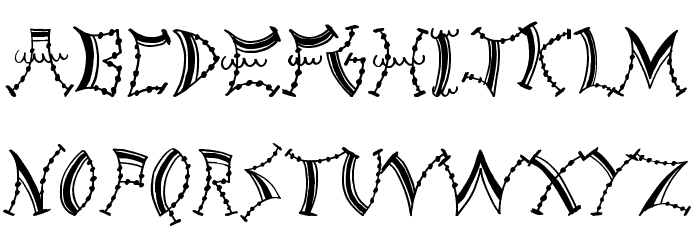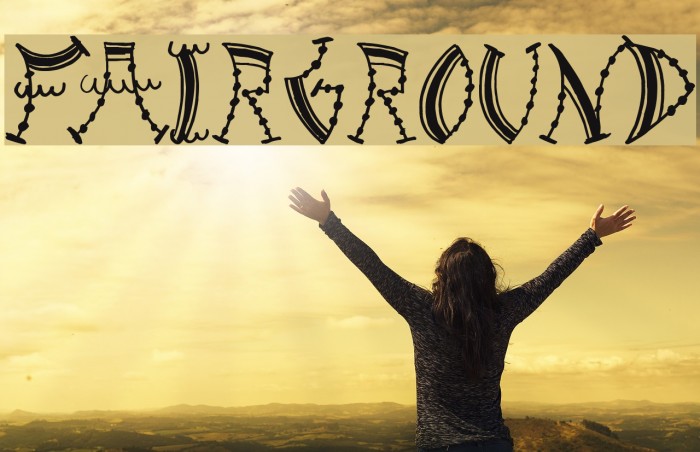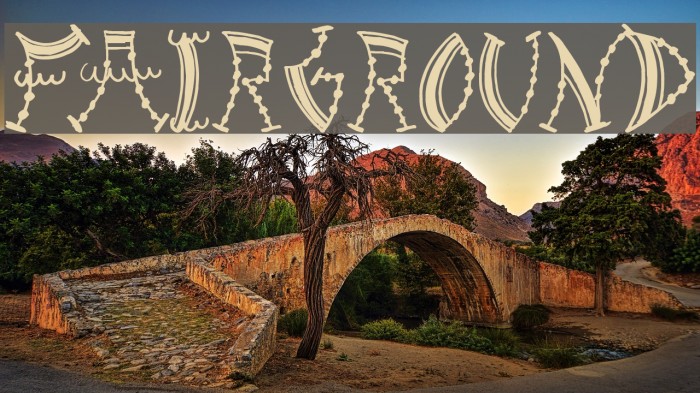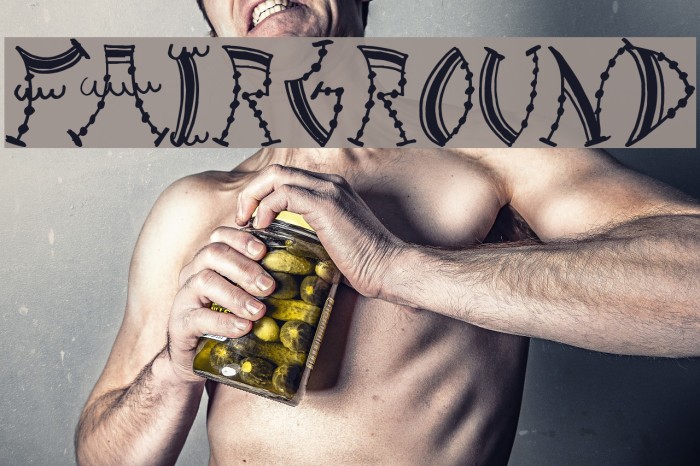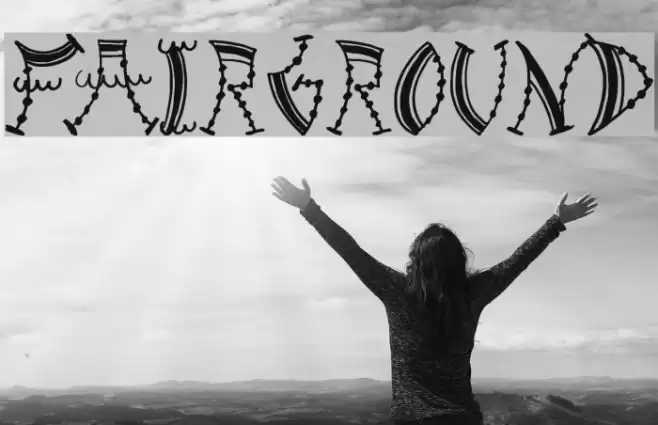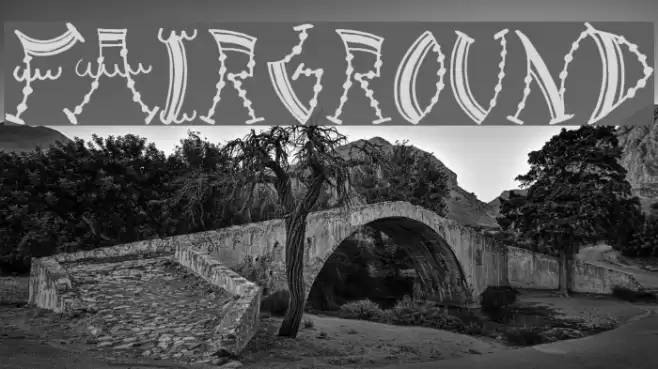
Fairground Font
This font features a whimsical and playful design, reminiscent of vintage fairground signage. The uppercase letters are adorned with decorative elements that mimic the look of lights or bulbs, giving each character a festive and lively appearance. The lowercase letters maintain a similar style, ensuring consistency throughout the text. The numerals are bold and clear, making them easily readable while still fitting the overall theme. Special characters are included, each with unique embellishments that add to the font's charm. This font is perfect for projects that require a touch of nostalgia and fun.
A whimsical, decorative font inspired by vintage fairground signage.
- Font: Fairground
- Proposed Projects: Ideal for carnival-themed posters, children's book covers, party invitations, and retro-style branding.
- Overall Style: Vintage